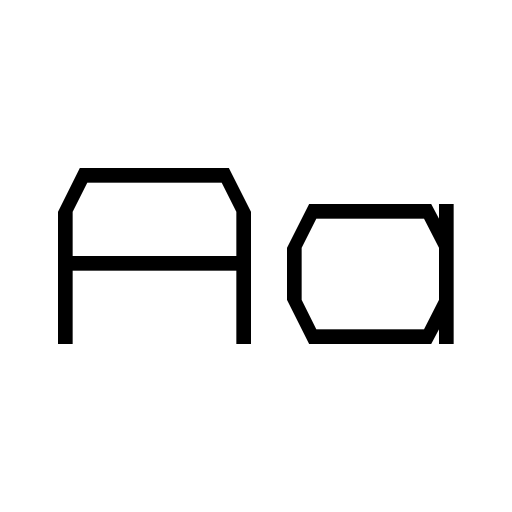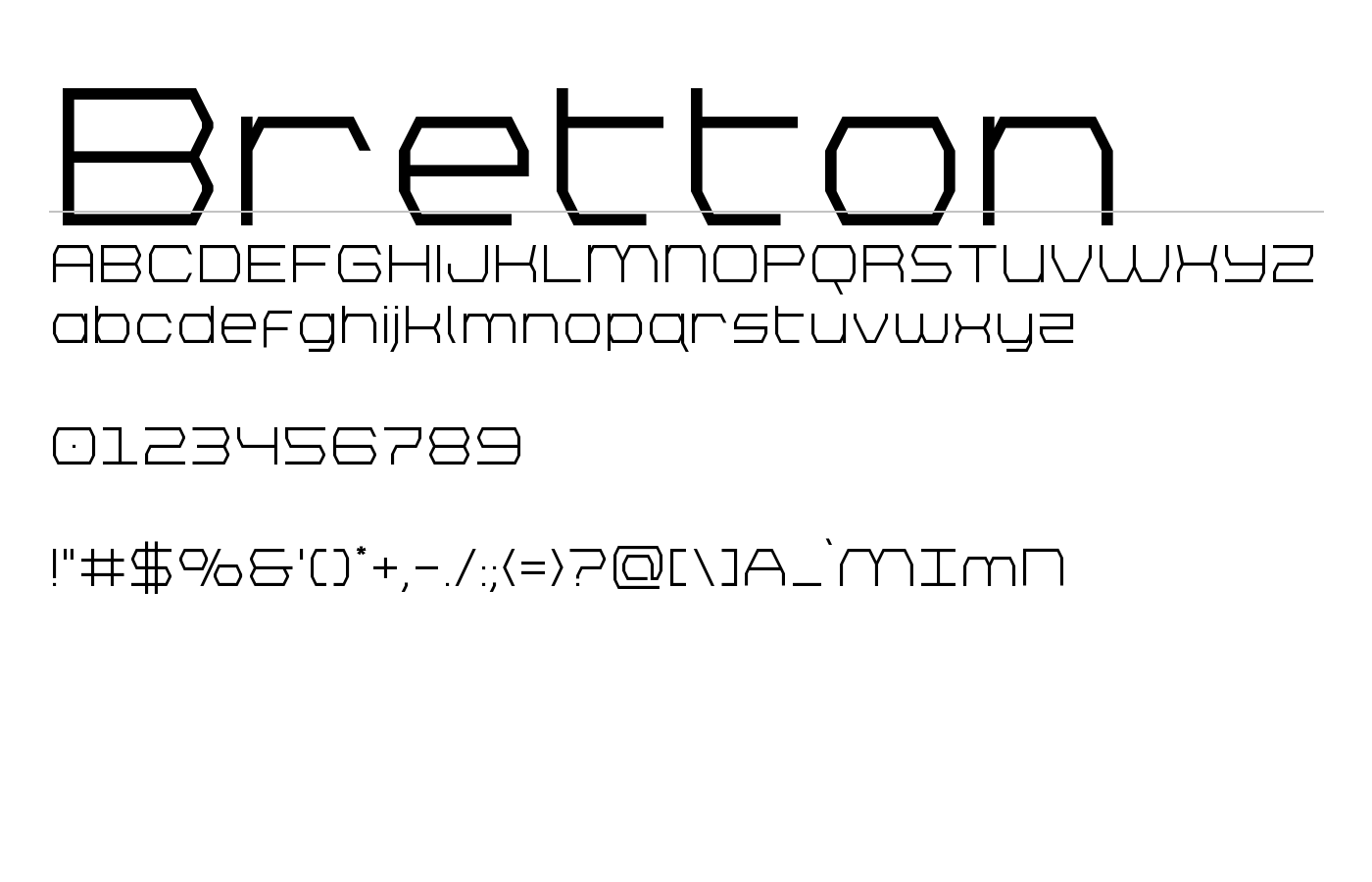
Bretton is a geometric, futuristic sans serif font characterized by its thin, precise lines and octagonal letterforms that create a technical and modern aesthetic. With its light weight and monoline construction, it delivers a clean and airy feel that works well for tech-oriented branding, digital interfaces, and minimalist design projects. Its sharp angles and unique shapes give it a distinctive, contemporary personality suited for headlines and logos that aim to convey innovation and sophistication.
Bretton Font